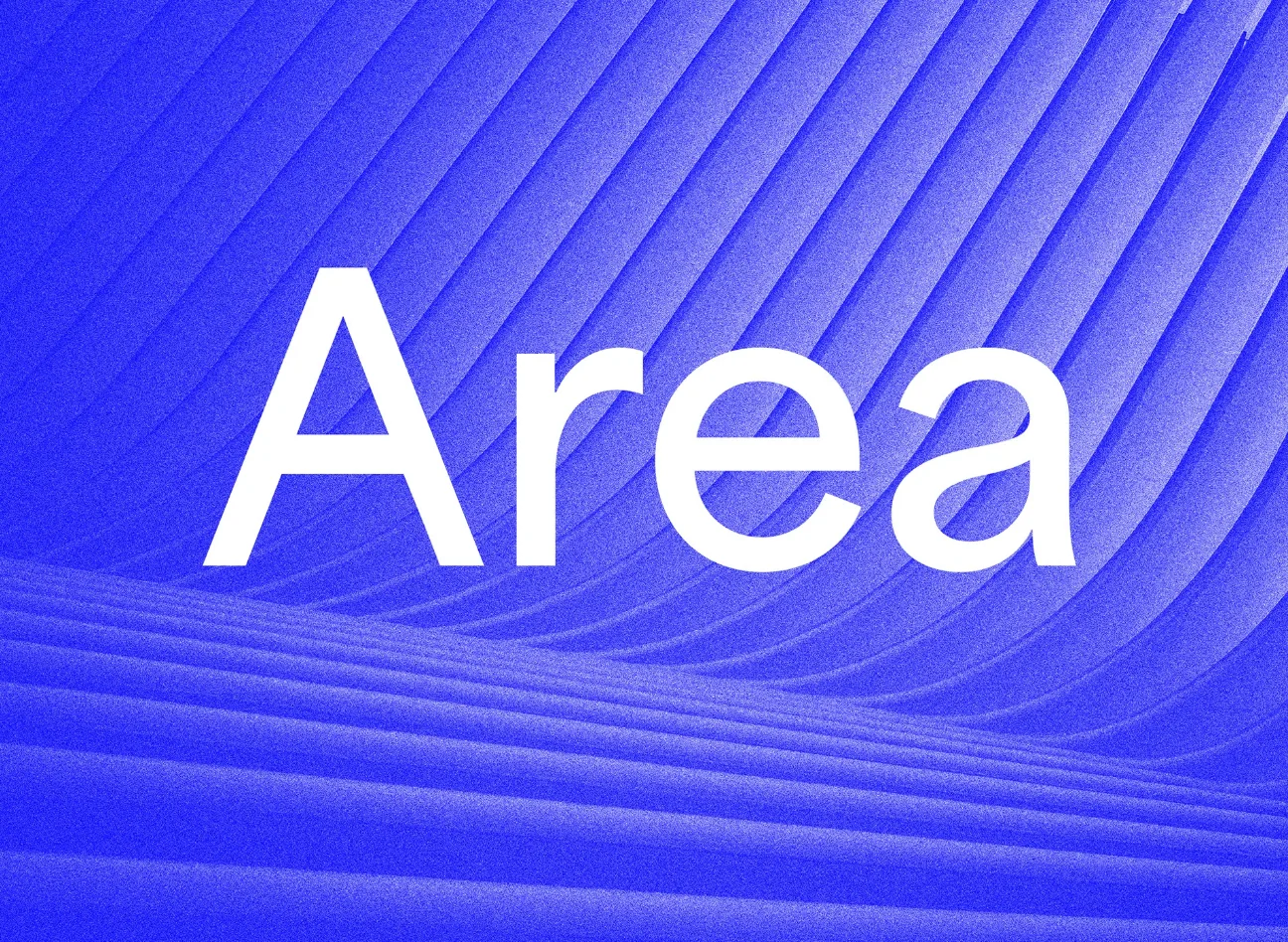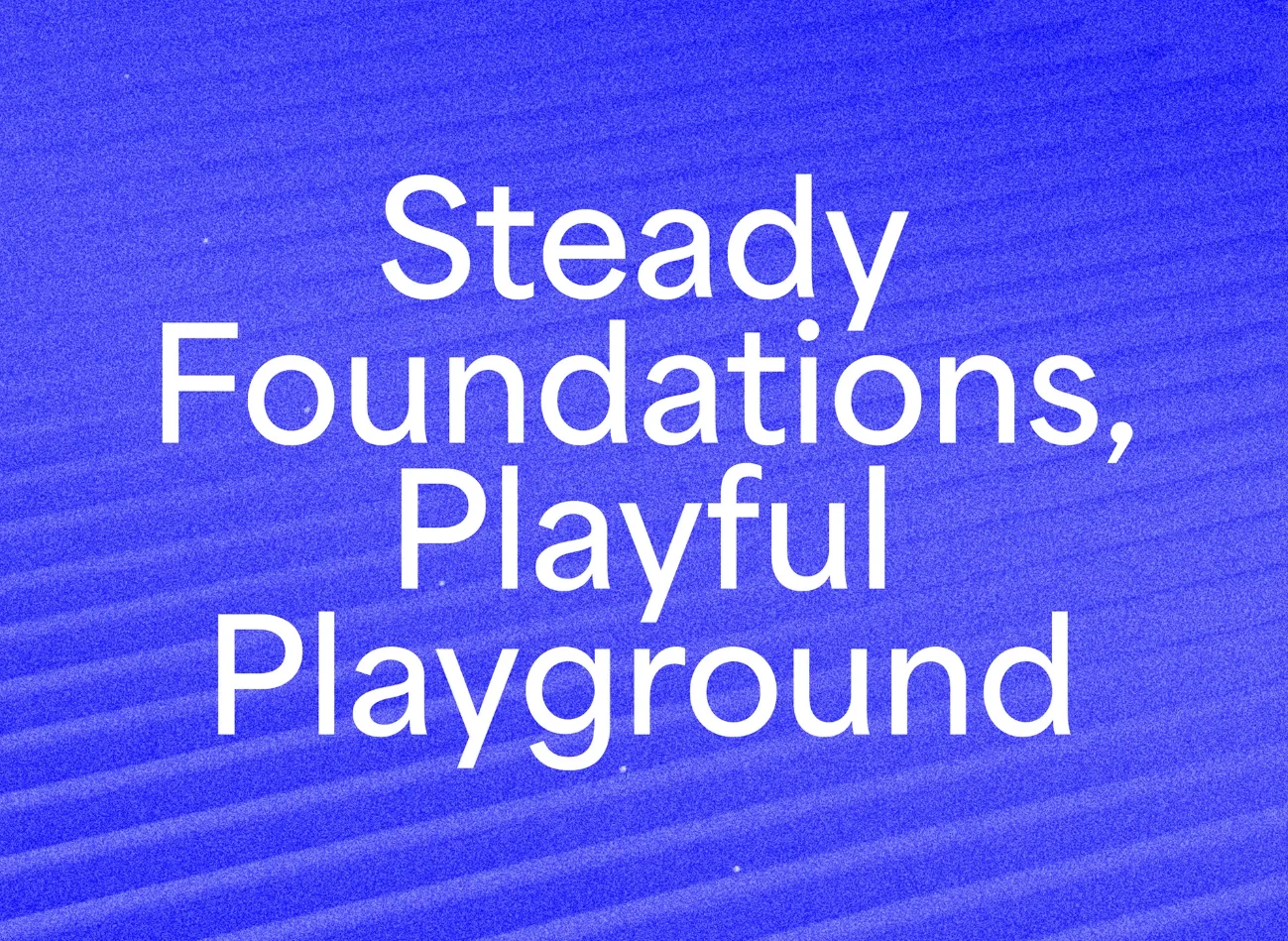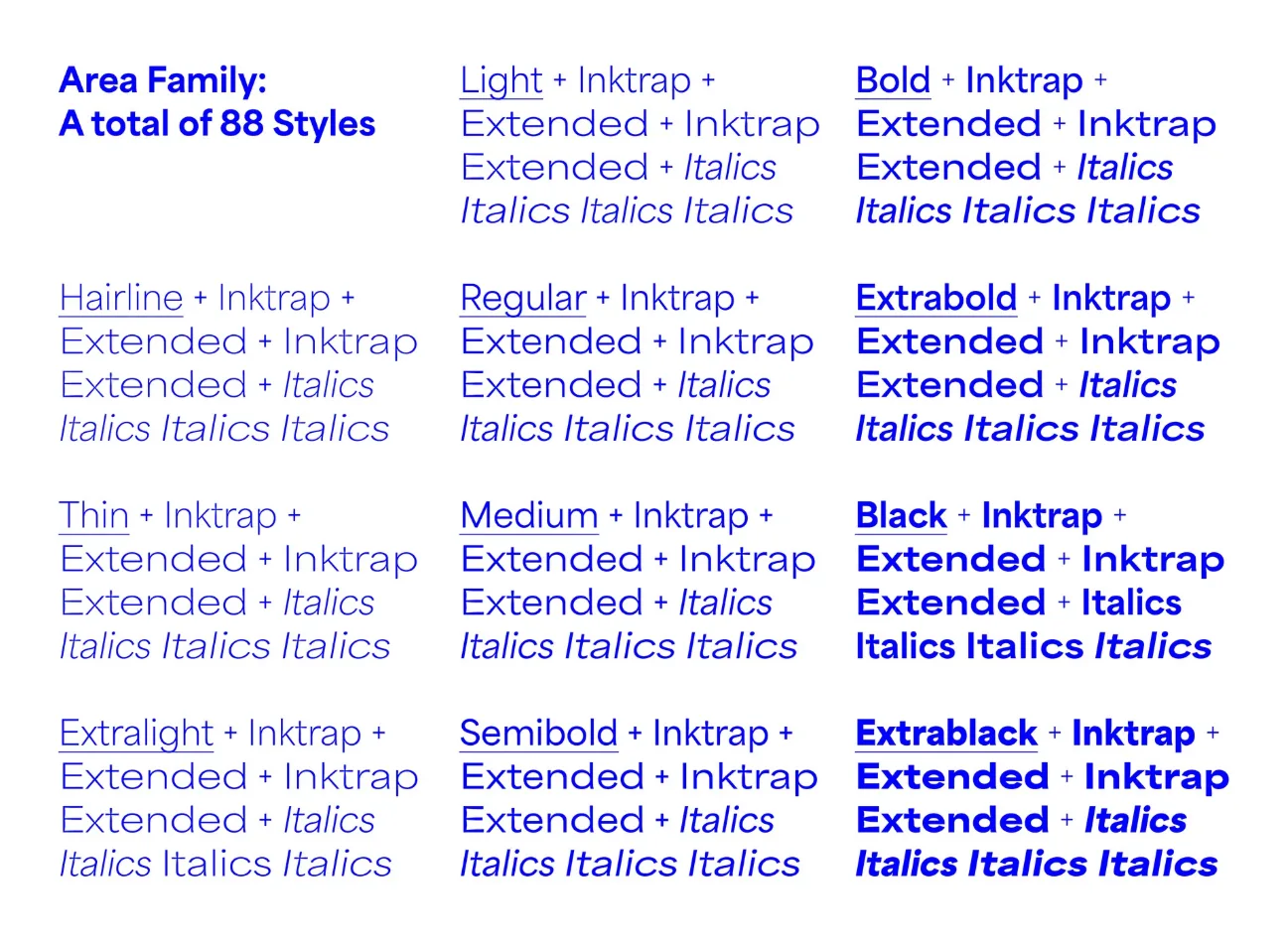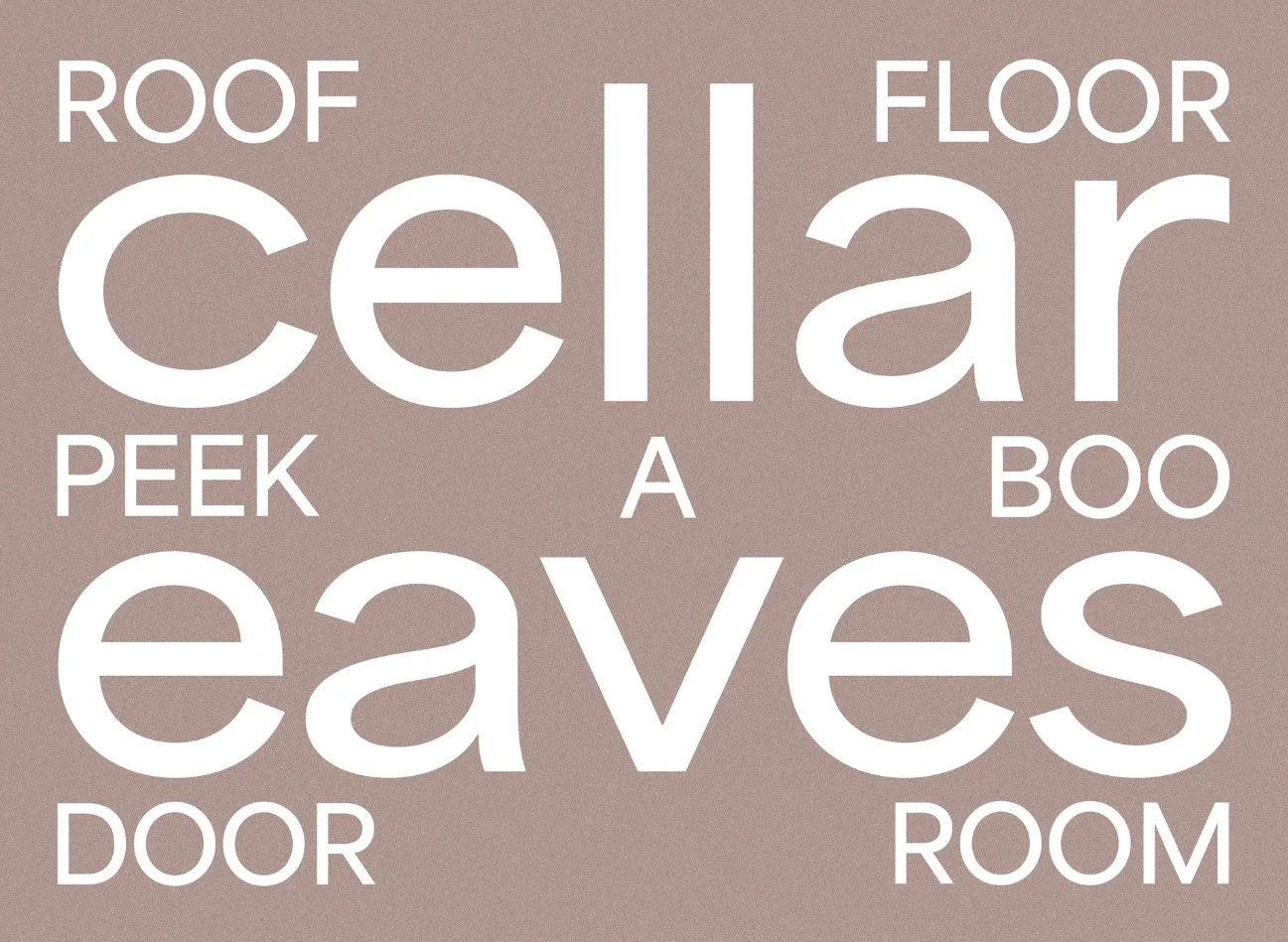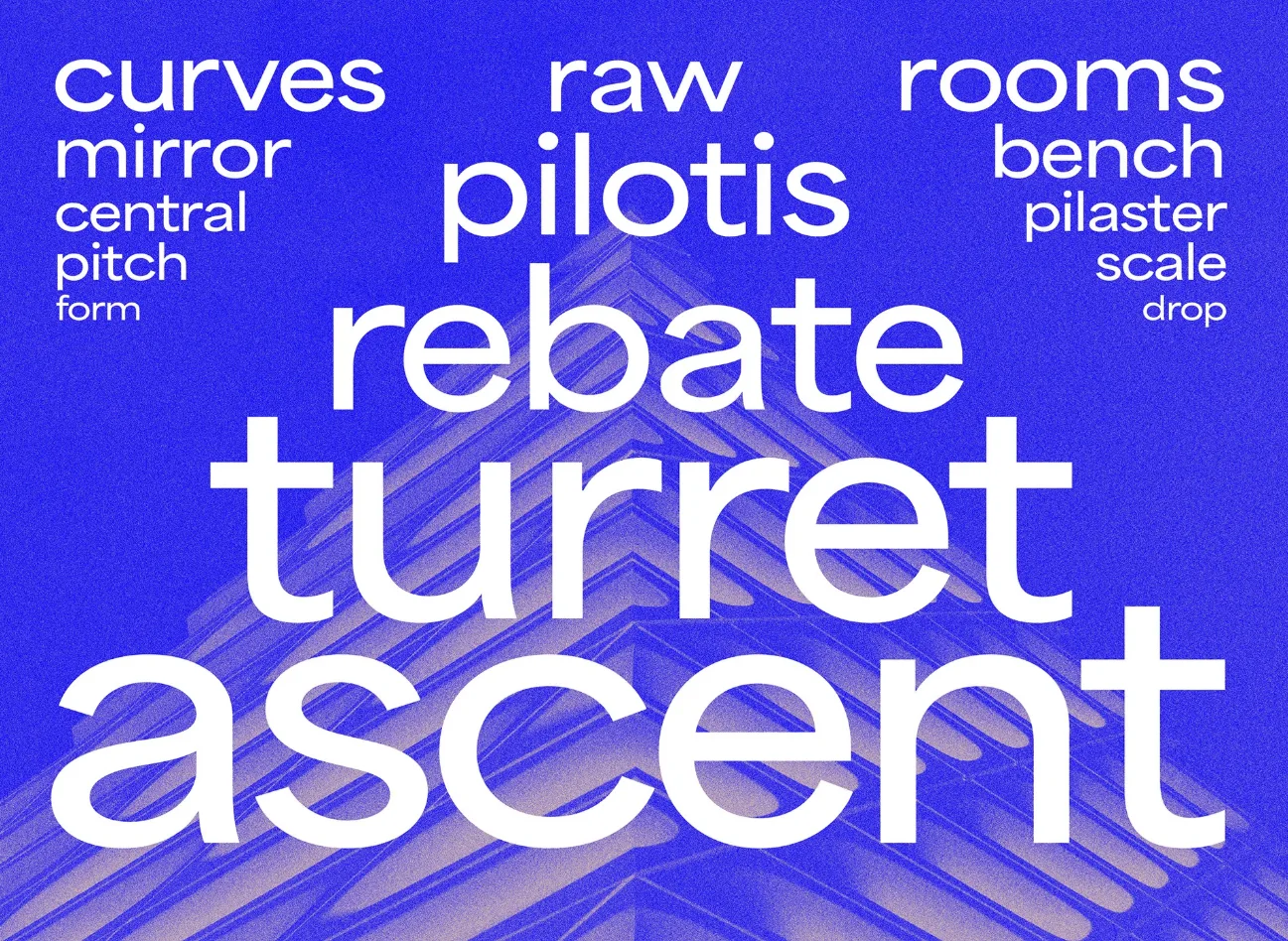
About Area Font
I’m a typographer and graphic designer who enjoys exploring typefaces that go beyond the ordinary. My latest project needed something versatile yet precise, and that’s when I came across the Area Font. I discovered it while browsing Blaze Type’s collection and was immediately drawn to its range. The flexibility in width, style, and weight made it ideal for a multi-platform branding job I was working on. After testing it in a few layouts, it was clear this wasn’t just another font, it was a full system that could adapt to every format I needed. That’s why I’m reviewing it here.
What Is the Area Font?
Area Font is a variable font family with an impressive 88 fonts, designed for adaptability and control. It comes in two widths, Normal and Extended, with matching italics, plus two style variations, Normal and Inktrap, also with italics. This setup takes full advantage of the variable technology to bring a powerful font system for modern projects.
The font was designed by Matthieu Salvaggio from Blaze Type, with production by Alain Papazian and revision by Léon Hugues. Released in 2020, it reflects a design approach that blends precision with creativity. The design process of Area started with a stable base, aiming to address the needs of font users in various industries. From branding to editorial layouts, it’s built to be a reliable tool.
Features of the Area Font
One of the strongest points of Area Font is its variety. With 88 fonts in the family, you can explore endless combinations of width, style, and weight. This includes 22 weights in the Normal family alone, all with matching italics.
The inktrap style adds character for projects needing a sharper, more defined look, while the Normal style maintains a clean, quiet neogrotesque robe for modern, minimal designs. The bold strokes, consistent character set, and extensive glyph support make it highly adaptable.
Opentype features are fully integrated, allowing advanced typographic controls. From ligatures to alternate forms, the font offers depth without overcomplication. This makes it perfect for design projects where fine-tuned typography matters.
The variable version is where the magic happens. It lets you control weight and width dynamically, giving you more creative freedom without switching between multiple files. This is ideal for video and broadcast work, where responsive design is essential.
Whether you need to embed fonts into a logo, create typographic styles for a campaign, or design custom brand systems, Area covers all the technical and creative bases.
Area Font works across a wide range of projects. In branding, it provides a professional yet approachable tone. For corporate identities, the clean sans serif form is dependable, while the inktrap variation brings a modern edge.
Editorial designers can use its normal and extended widths to create visual hierarchy in layouts. It’s also effective in packaging and product design, where different weights can emphasize key information without changing typefaces.
In digital spaces, the variable technology in order allows for seamless scaling across desktop, mobile, and responsive designs. This means you can use one file for both web and app typography.
For logos, Area delivers clarity at small sizes and impact at large formats. In video and broadcast, the clean geometry and glyph support keep text readable on-screen. It also excels in designing custom branding systems that require both consistency and flexibility.
If your project needs a typeface that can adapt while keeping its identity intact, Area Font is a strong contender.